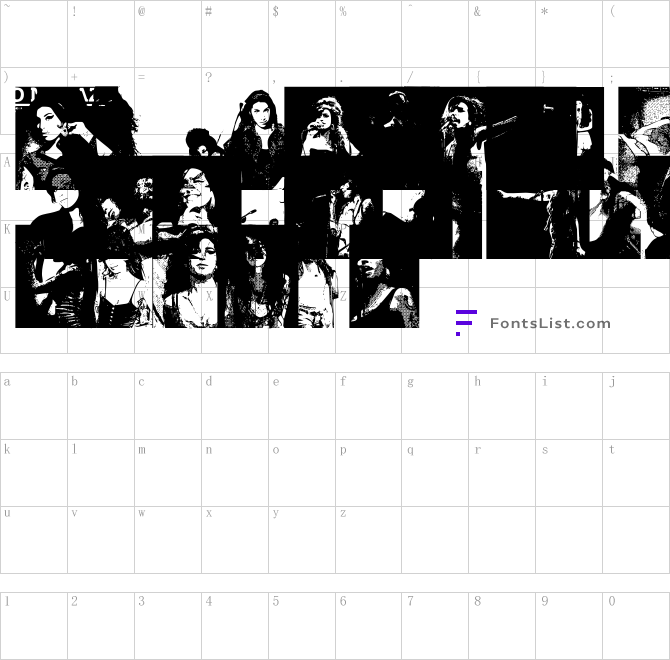
- Font Name:AmyBats 5
AmyBats-5.ttf is a very beautiful artistic font, AmyBats-5.ttf is widely used in the design and printing of various books and pictures,AmyBats-5.ttf has a strong visual impact,AmyBats-5.ttf is a commonly used font in newspapers, magazines and books, and is used in posters, e-commerce Poster design, store design, logo design, font design and other fields.AmyBats-5.